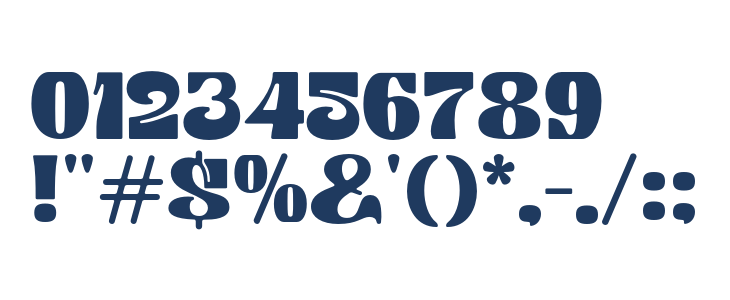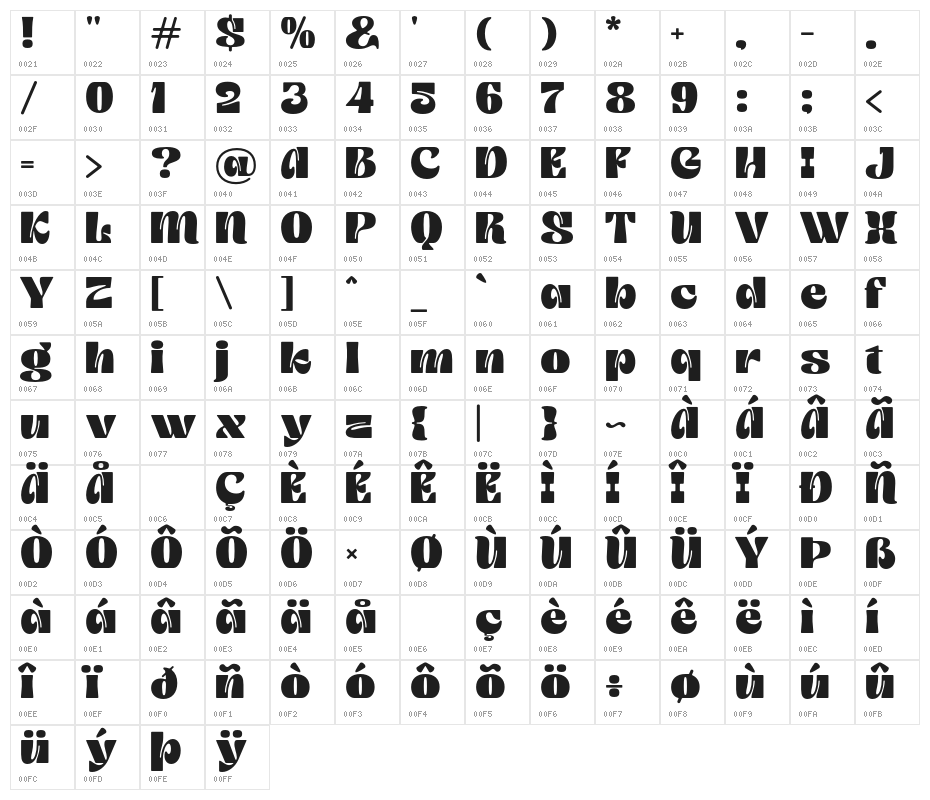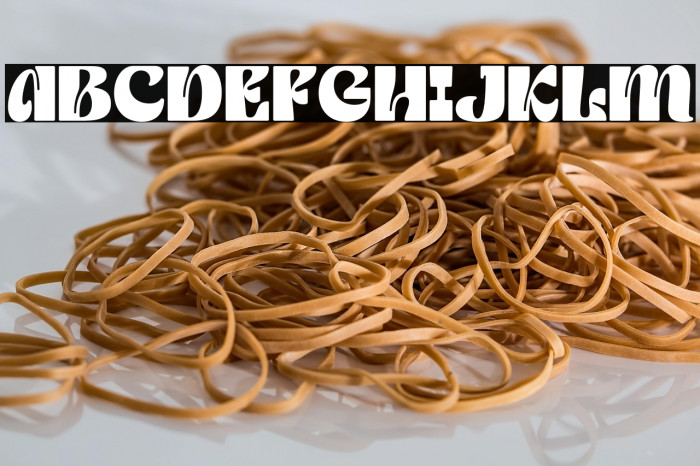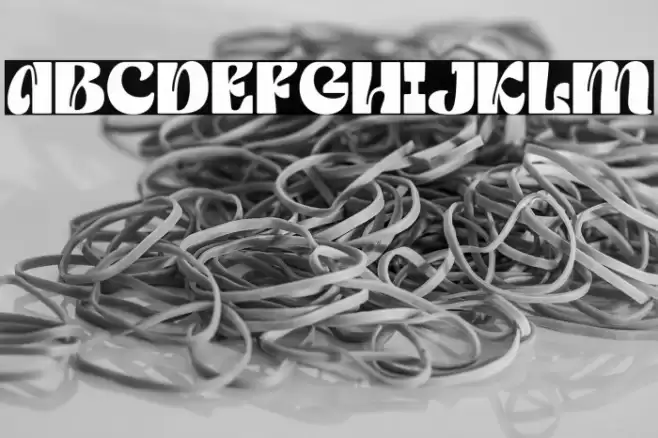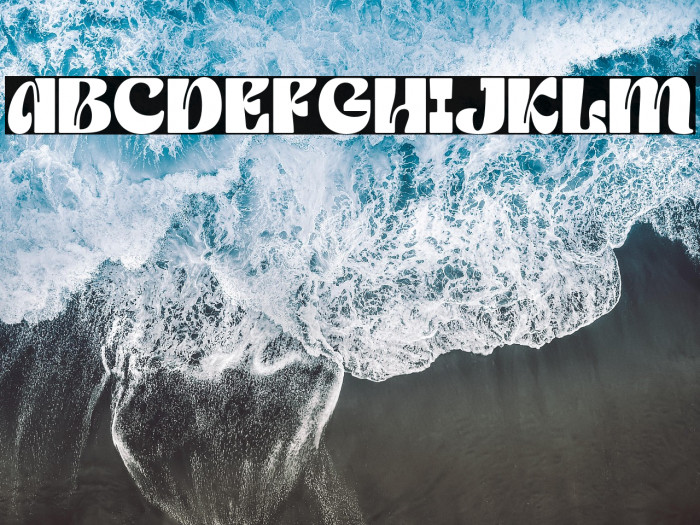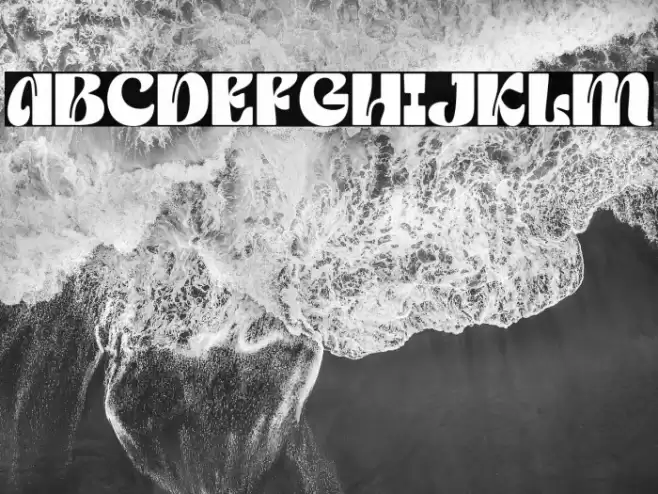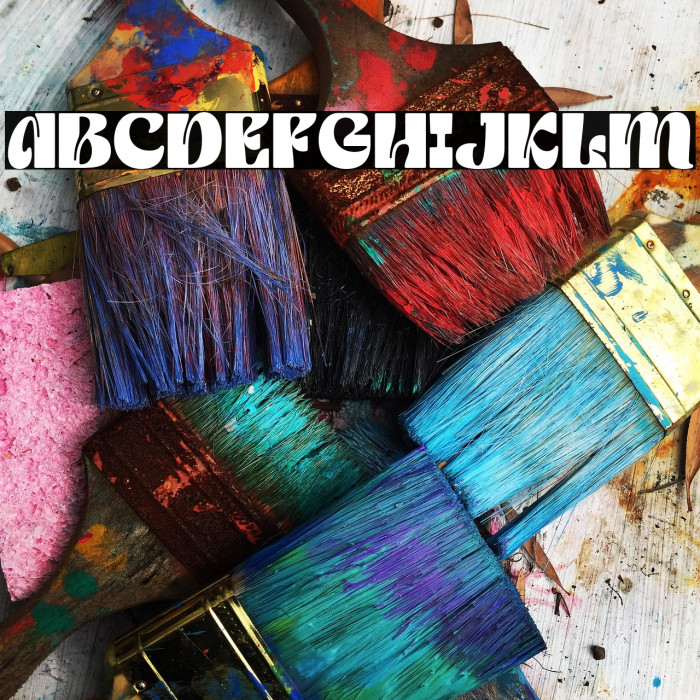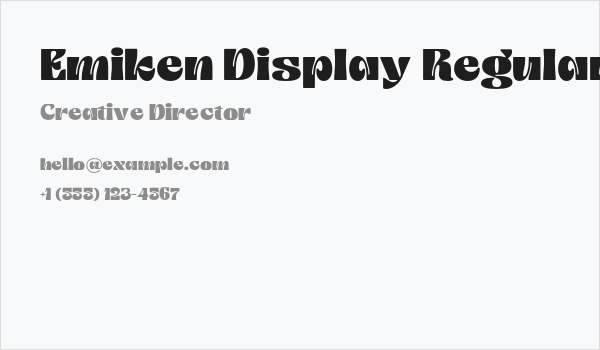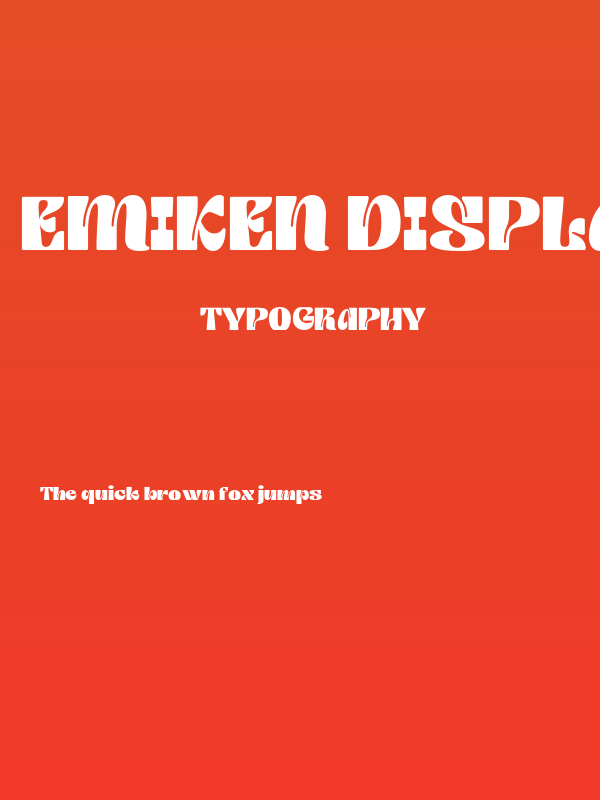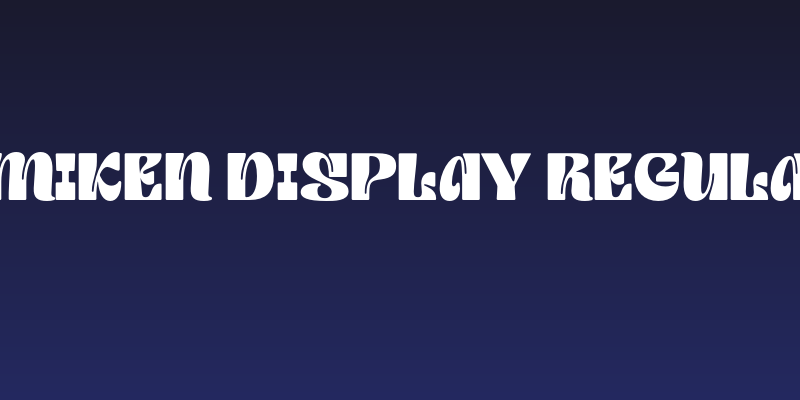
Emiken Display Regular Font
Emiken Display Regular Description
This font features a bold and dynamic design with thick, rounded strokes that give it a strong presence. The characters have a playful and slightly retro feel, with unique curves and angles that add a sense of movement and energy. The uppercase and lowercase letters maintain a consistent style, while the numbers and special characters complement the overall aesthetic. The font's boldness makes it stand out, making it ideal for attention-grabbing designs.
| Overall Style | Retro, Playful |
| Proposed Projects | Ideal for posters, logos, branding, and any design requiring a bold, eye-catching typeface. |